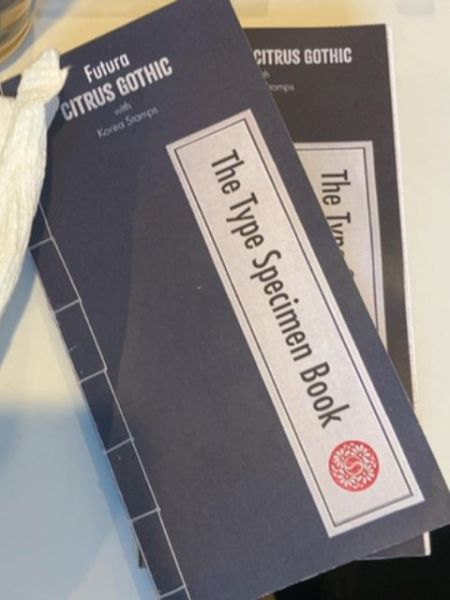
The Type Specimen Book
A compilation of various typefaces showcasing their design and application.
The typography on the cover uses clean, sans-serif fonts, providing a modern and streamlined aesthetic. 'Futura,' known for its geometric shapes, contrasts with 'Citrus Gothic,' which is more contemporary and striking. The use of varying font weights adds visual hierarchy and interest.
The packaging consists of a slender, booklet-style format with a dark cover. It features a minimalist design with white text and a decorative red stamp, providing an elegant and professional look.
- Showcases a variety of fonts.
- Includes both Futura and Citrus Gothic typefaces.
- Features a Japanese binding style.